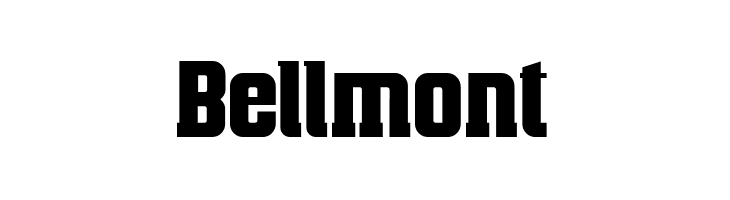
A bold, gothic-inspired font with sharp, angular edges and a medieval flair.
A classic slab serif font with bold, block-like serifs and a strong, authoritative presence.
An elegant script font with flowing, interconnected letters and ornate flourishes.
A sleek, light, and italic font with a modern and elegant design.
A sleek, italicized font with narrow, elongated characters and medium contrast.
A classic serif font with elegant strokes and refined details.
A classic serif font with high contrast and elegant strokes.
An elegant script font with fluid, cursive strokes and a sophisticated appearance.
A distinctive serif font with sharp angles and flowing curves, blending traditional and modern styles.
A classic, high-contrast serif font with elegant, narrow characters.
A bold, shadowed font with a three-dimensional effect and sharp serifs.
An elegant script font with flowing, cursive lines and intricate flourishes.
A bold, elongated font with a vintage flair and high contrast strokes.
An artistic handwritten font with elegant, slightly irregular strokes.
A tall, narrow font with a modern and sleek design.
A bold, modern sans-serif font with clean lines and geometric structure.
A classic serif font with elegant strokes and sharp serifs.
An elegant script font with flowing, ornate cursive letters and intricate flourishes.
An elegant and sophisticated script font with flowing, interconnected letterforms.
A bold, classic serif font with strong, well-defined characters.
A bold, playful font with rounded, bubbly letterforms.
An elegant italic serif font with a classic and sophisticated style.